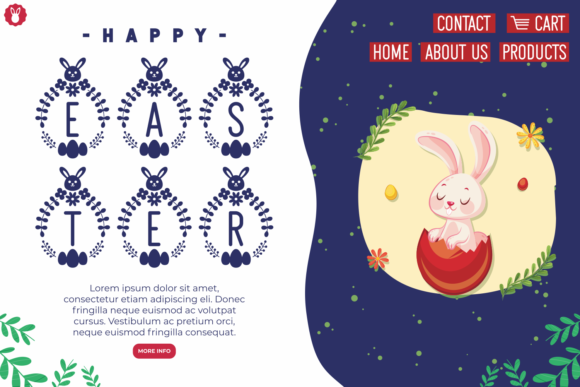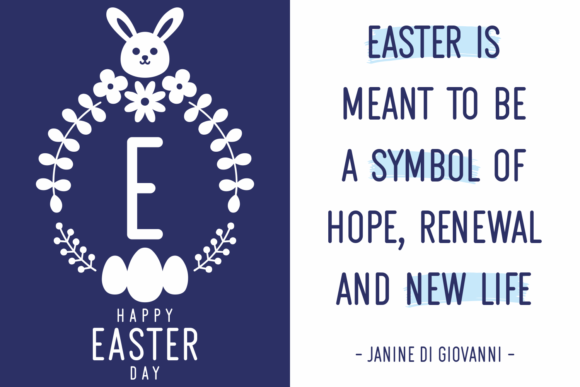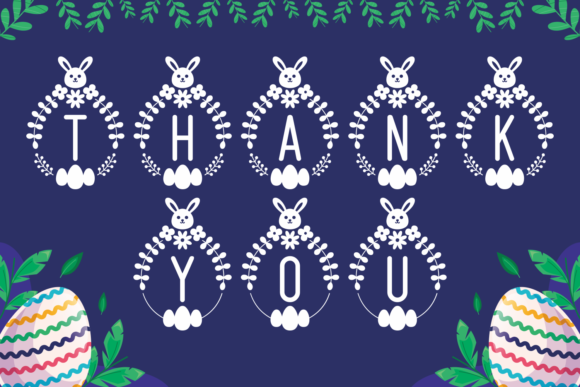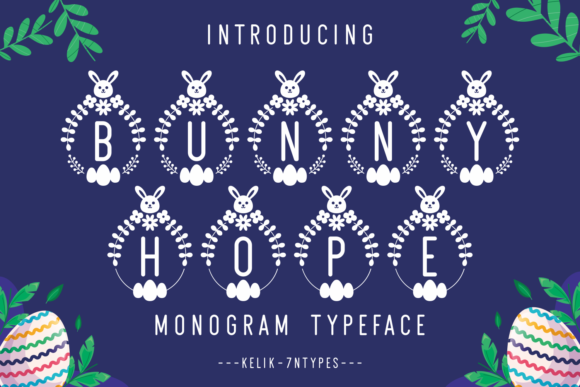
Bunny Hope Font: The Perfect Addition to Your Easter Designs
Are you looking for a font that will add a touch of whimsy and joy to your Easter designs? Look no further than the Bunny Hope Font! This adorable, decorative font is sure to bring a smile to your face and make your designs stand out. In this article, we’ll take a closer look at the Bunny Hope Font, its features, and how you can use it to create stunning Easter designs.
What is Bunny Hope Font?
Bunny Hope Font is a cute, whimsical, and jolly decorative font that is perfect for Easter-themed designs. Its sweet and full-of-life style makes it a wonderful choice for brightening up your Easter designs. The font features rounded edges, playful curves, and a cheerful vibe that is sure to capture the spirit of Easter.
Key Features of Bunny Hope Font
The Bunny Hope Font has several key features that make it a great choice for Easter designs. Some of its notable features include:
- Cute and Whimsical Design: The font features a cute and whimsical design that is perfect for Easter-themed designs.
- Rounded Edges: The font has rounded edges that give it a soft and playful look.
- Playful Curves: The font features playful curves that add to its whimsical and cheerful vibe.
- Full of Life Style: The font has a full-of-life style that makes it perfect for Easter designs.
How to Use Bunny Hope Font in Your Easter Designs
The Bunny Hope Font is a versatile font that can be used in a variety of Easter designs. Here are some ideas on how to use it:
- Easter Cards: Use the Bunny Hope Font to create adorable Easter cards for your loved ones.
- Easter Invitations: Create eye-catching Easter invitations with the Bunny Hope Font.
- Easter Social Media Graphics: Use the font to create fun and engaging Easter social media graphics.
- Easter Craft Projects: Use the Bunny Hope Font to add a personal touch to your Easter craft projects, such as Easter egg decorations or bunny-themed crafts.
Why Choose Bunny Hope Font?
There are many reasons why you should choose the Bunny Hope Font for your Easter designs. Here are a few:
- Unique and Playful Design: The font has a unique and playful design that will make your Easter designs stand out.
- Easy to Read: The font is easy to read, making it perfect for designs that require a clear and legible font.
- Versatile: The font is versatile and can be used in a variety of Easter designs.
Tips for Using Bunny Hope Font
Here are some tips for using the Bunny Hope Font in your Easter designs:
- Use it with Pastel Colors: The Bunny Hope Font looks great with pastel colors, which are perfect for Easter designs.
- Pair it with Other Easter-themed Fonts: Pair the Bunny Hope Font with other Easter-themed fonts to create a unique and eye-catching design.
- Experiment with Different Sizes: Experiment with different sizes of the font to create visual interest in your designs.
| Font Name | Bunny Hope Font |
| Author | Kelik – 7NTypes |
The Bunny Hope Font is a wonderful addition to any Easter design. Its cute, whimsical, and jolly design makes it perfect for brightening up your Easter designs. With its rounded edges, playful curves, and full-of-life style, this font is sure to capture the spirit of Easter. Whether you’re a designer or a crafter, the Bunny Hope Font is a great choice for your Easter designs.